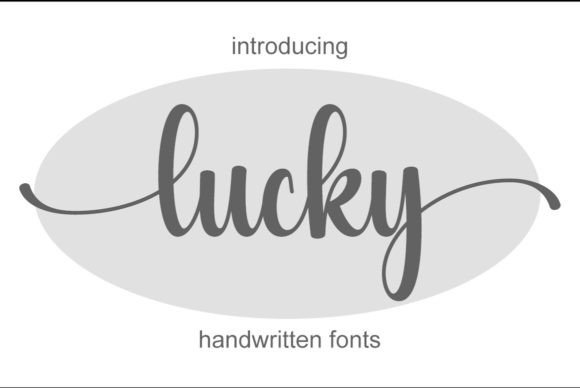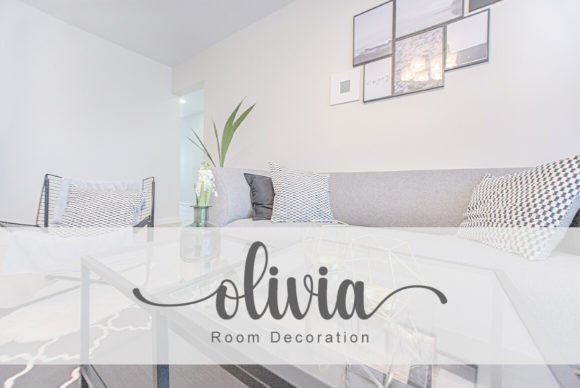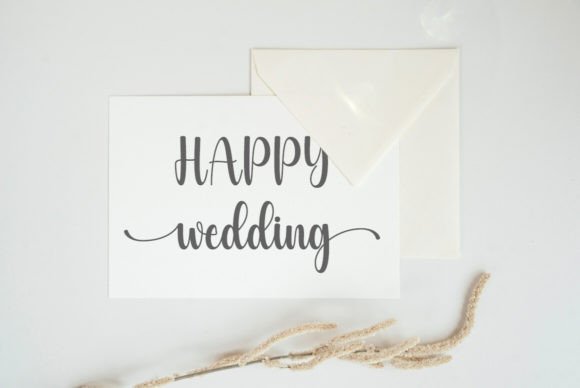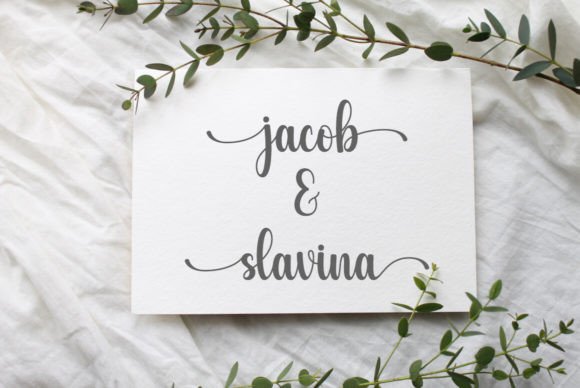
Lucky Font: Elegant Handwritten Script for Wedding Invitations
About the Lucky Font
Meet Lucky Font, a stunning font that brings a touch of elegance and professionalism to any design. Lucky is an elegant and delicate handwritten typeface. This is perfect for your various design needs, such as logos and branding, social media posts, advertisements, business cards, wedding invitation, product design, etc. This font is PUA encoded which means you can access all of the glyphs and alternates with ease!
Lucky Font’s delicate nature makes it ideal for projects requiring a touch of elegance and sophistication, such as wedding invitations, branding for luxury goods, or high-end product packaging. Its handwritten style also works well in short social media copy or as an accent font in marketing materials. However, avoid using it for large bodies of text or UI elements; its low x-height and varying stroke weights would hinder readability.
Pairing Lucky with a clean sans-serif like Open Sans or Lato provides a strong contrast, balancing its delicate script style. For a more traditional feel, consider pairing it with a classic serif such as Garamond or Playfair Display. These pairings create visual harmony, allowing Lucky’s elegance to shine without overwhelming the overall design.
In short, Lucky Font exudes a refined and feminine personality. It is best suited for projects emphasizing grace and detail, where readability isn’t paramount.
Lucky Font Usage Examples
Lucky Font Example